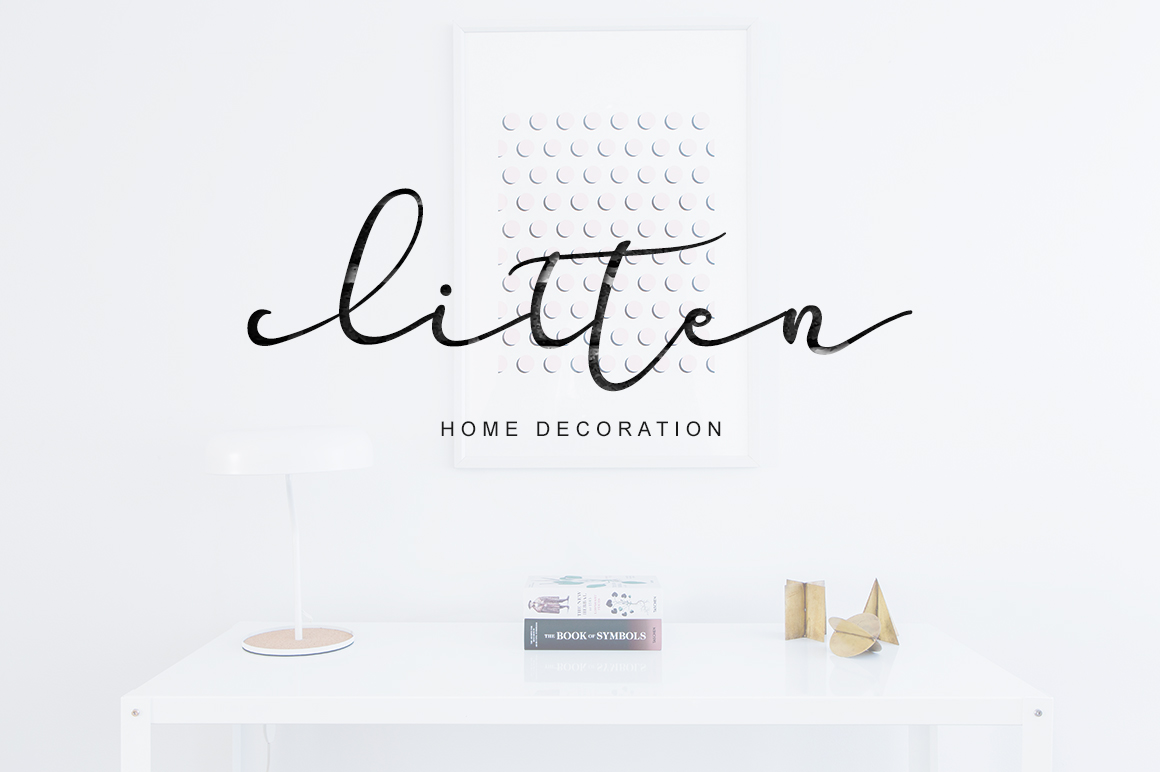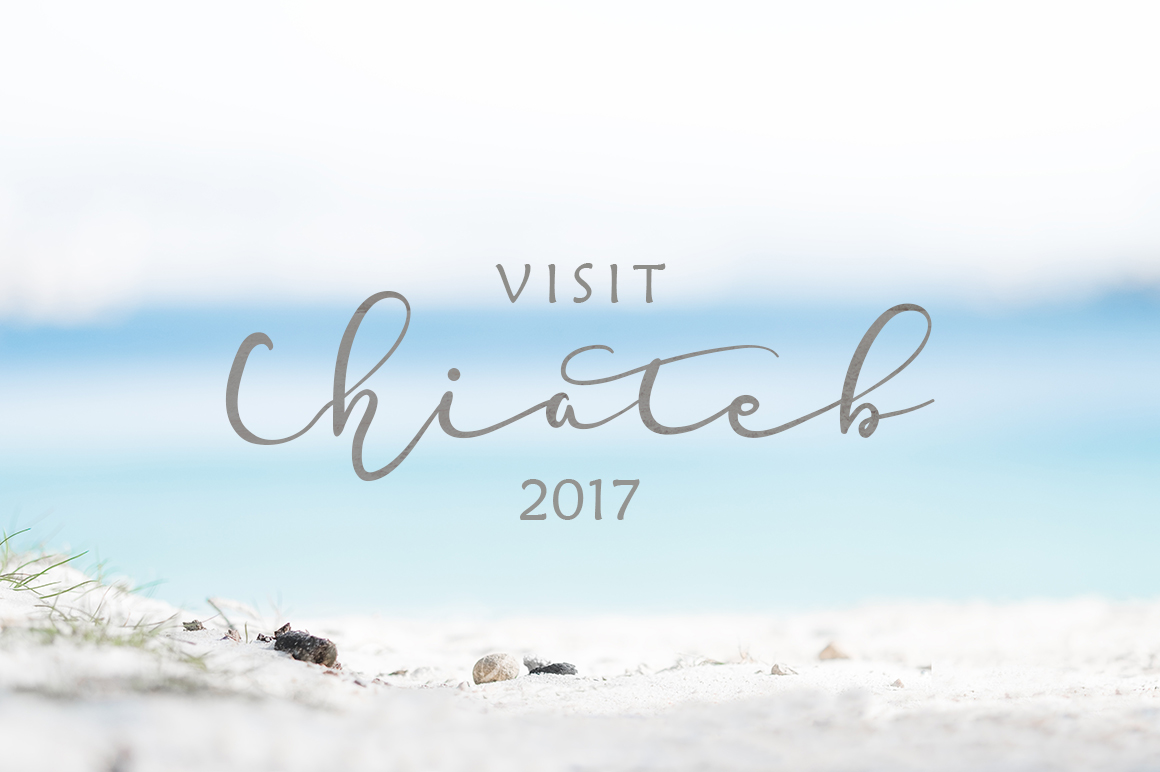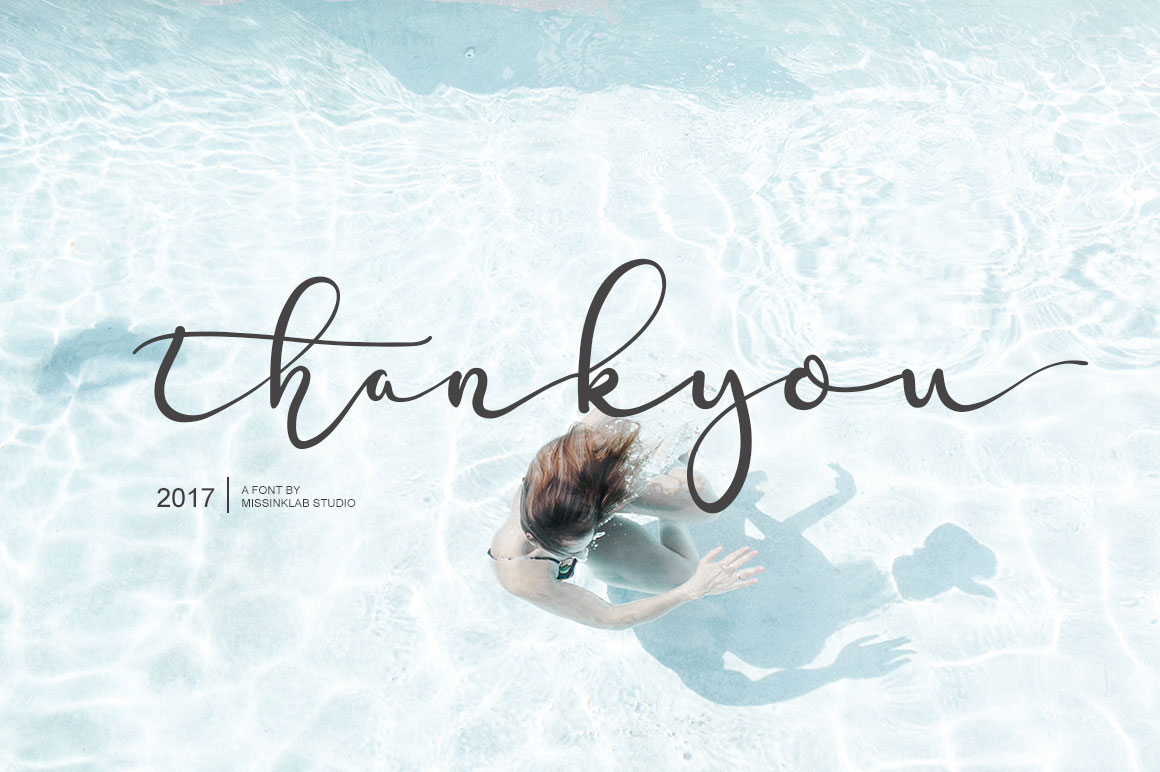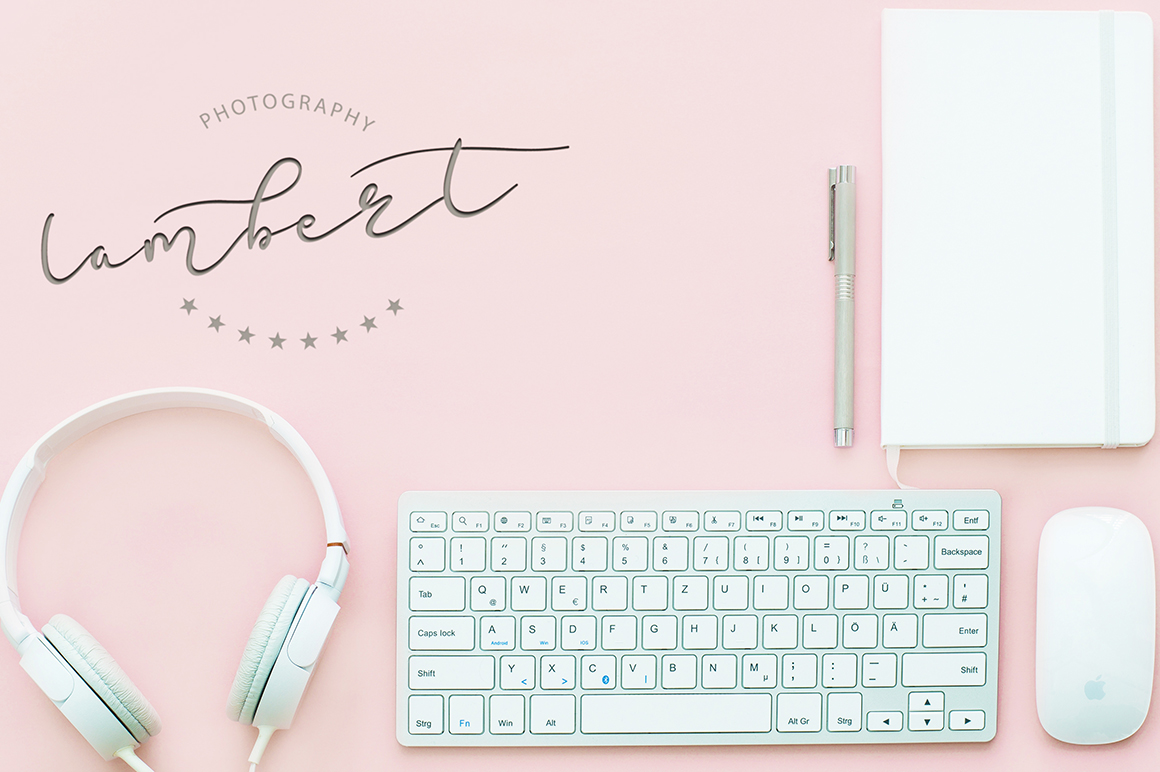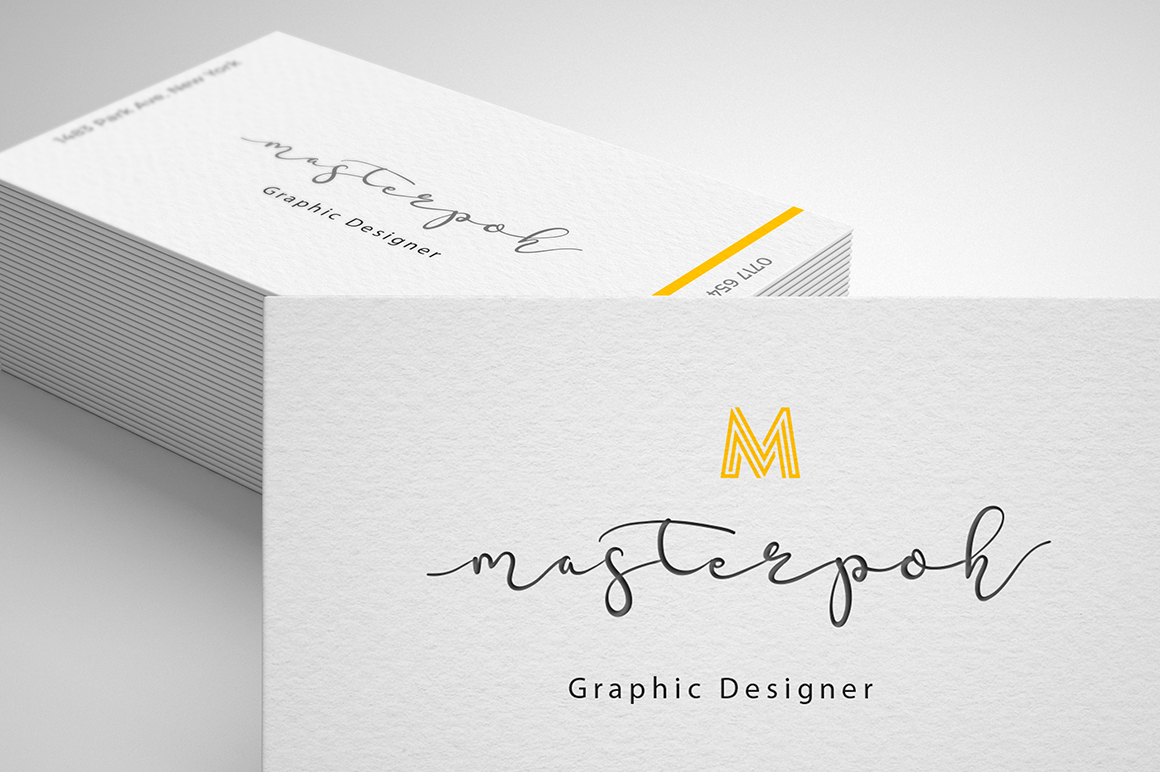
Discovering the Perfect Handwritten Touch
Enter Aletcia Font, a gorgeous handwritten script font that brings a modern twist to traditional typography. Designed to add a touch of elegance and sophistication to your designs, Aletcia Font is perfect for creating eye-catching headings, beautiful quotes, or even entire branding identities. As a valuable addition to any designer’s toolkit, Aletcia Font offers unparalleled flexibility and style, making it an essential choice for any creative project.
With Aletcia Font, you’ll be able to add a unique and personalized touch to your designs, setting them apart from the crowd and leaving a lasting impression on your audience.
Aletcia Font Key Features
- Font Family: Aletcia
- Font Style: Script, Casual
- Size: The font contains 1 style (Regular)
- Unique Characteristics: Aletcia is a handwritten script font with a casual feel, suitable for creative projects and designs where a personal touch is desired.
Aletcia Font Review
I recently had the chance to work with Aletcia Font, and I must say it’s an interesting addition to any design project. Here’s my honest take on this font:
- Unique character set: Aletcia Font boasts a distinctive character set that can add a touch of elegance to any design.
- Good legibility: The font is quite readable, even at smaller sizes, making it a great choice for body text.
- Supports multiple languages: Aletcia Font includes a wide range of language support, making it a versatile choice for multilingual projects.
- Limited font weights: The font only comes in a few weights, which may limit its use in certain design scenarios.
- No italic styles: Unfortunately, Aletcia Font does not include italic styles, which can make it difficult to use in certain contexts.
Aletcia Font is a solid choice for designers looking for a unique and elegant font. While it has some limitations, its good legibility and language support make it a great addition to any project. With a bit of creativity, designers can work around its limitations and create stunning designs with Aletcia Font.
Aletcia Font is ideal for:
– Creating visually appealing titles and headings
– Designing custom graphics and compositions
– Creating professional-looking presentations and documents
– Adding a touch of elegance and sophistication to your designs